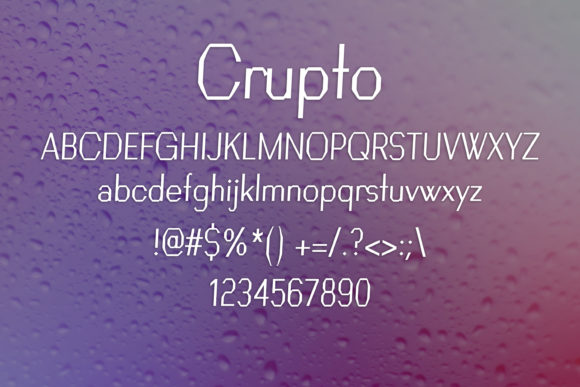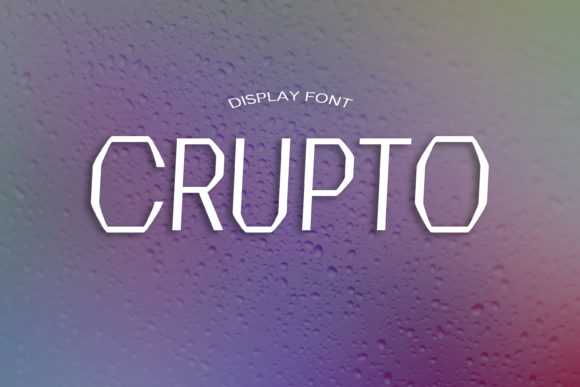
Crupto Font: Elevate Your Designs with Elegance and Modernity
In the world of typography, fonts play a crucial role in transforming a design from ordinary to extraordinary. For designers and crafters looking to make a statement, the Crupto Font is an exceptional choice. With its elegant and modern feel, this font is poised to turn any design idea into an eye-catcher. In this article, we’ll delve into the features and benefits of the Crupto Font, exploring how it can elevate your designs and make them stand out.
The Elegance of Crupto Font
Crupto Font exudes an air of sophistication and refinement, making it perfect for projects that demand a high level of elegance. Its sleek lines, precise curves, and balanced proportions create a harmonious visual experience. Whether you’re working on a luxury brand logo, a high-end product catalog, or an elegant wedding invitation, Crupto Font is sure to impress.
Modern Twists and Unique Features
What sets Crupto Font apart from other elegant fonts is its modern twist. The font’s design incorporates subtle nuances and creative elements that give it a fresh and contemporary feel. This blend of classic elegance and modern flair makes Crupto Font versatile and adaptable to a wide range of design applications.
Key Features of Crupto Font
- Clean and Crisp Lines: The font features clean lines and precise curves, ensuring excellent readability and a polished look.
- Elegant and Refined: Crupto Font’s elegant design makes it suitable for high-end projects and luxury brands.
- Modern and Fresh: The font’s modern twists and unique features give it a fresh and contemporary feel.
- Versatile: Crupto Font can be used for a variety of design applications, from logos and headings to packaging and advertising.
Using Crupto Font in Your Designs
One of the best things about Crupto Font is its ease of use. Whether you’re a seasoned designer or a crafting enthusiast, you can easily incorporate this font into your projects. Here are some ideas to get you started:
- Logos and Branding: Create a lasting impression with a custom logo or brand identity using Crupto Font.
- Wedding and Event Invitations: Add a touch of elegance to your wedding or event invitations with Crupto Font.
- Product Packaging: Elevate your product packaging with Crupto Font, making your products stand out on store shelves.
- Advertising and Marketing: Use Crupto Font in your advertising and marketing materials to convey a sense of sophistication and style.
Tips for Getting the Most Out of Crupto Font
In conclusion, Crupto Font is an exceptional choice for designers and crafters looking to add a touch of elegance and modernity to their projects. With its clean lines, refined design, and modern twists, this font is sure to turn any design idea into an eye-catcher. By incorporating Crupto Font into your designs, you’ll be able to create stunning visual experiences that leave a lasting impression.